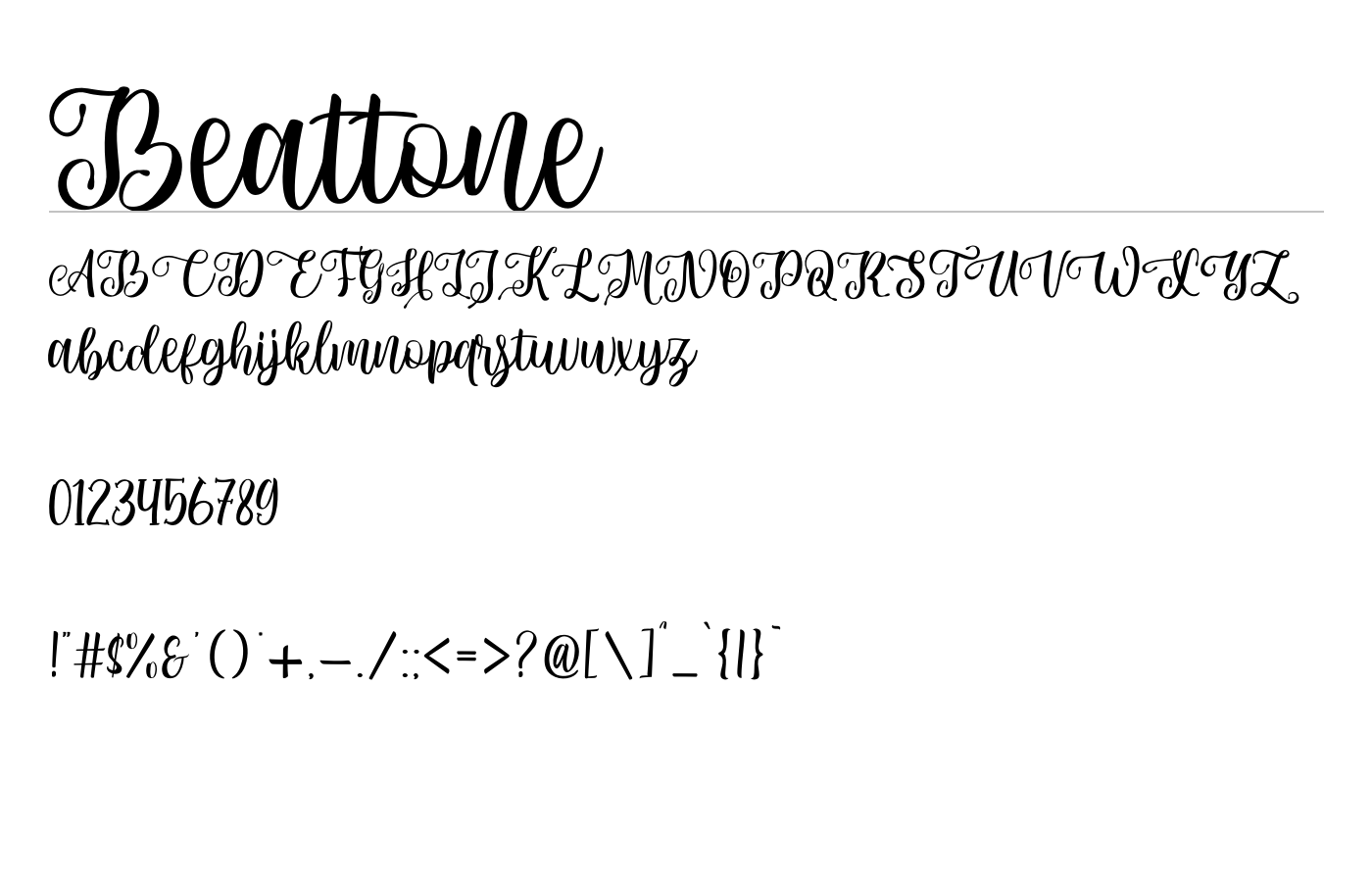
Beattone is an elegant script font with a modern handwritten style, featuring delicate strokes and graceful swashes that create a flowing, artistic feel. Its slender, slightly condensed letterforms with high contrast and playful curves make it ideal for chic branding, invitations, and decorative headlines. This font adds a touch of sophistication and charm, perfect for fashion, beauty, and lifestyle designs seeking a personal and stylish flair.
Beattone Font
About Beattone Font